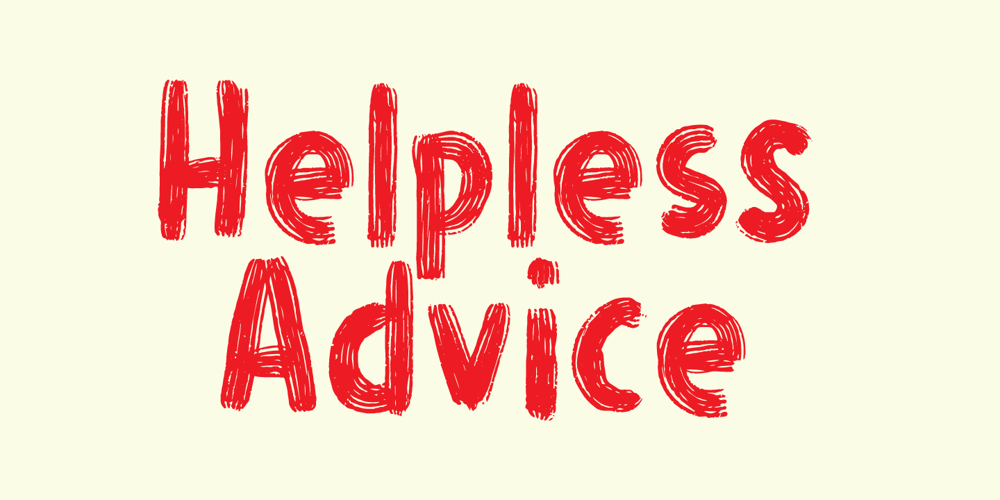
Helpless Advice Font Family was designed by published by Bogstav. Helpless Advice contains 2 styles and family package options. Brush font with rugged details. Works well in both UPPER- and lowercase. Multilingual and ligature support for most common double letters